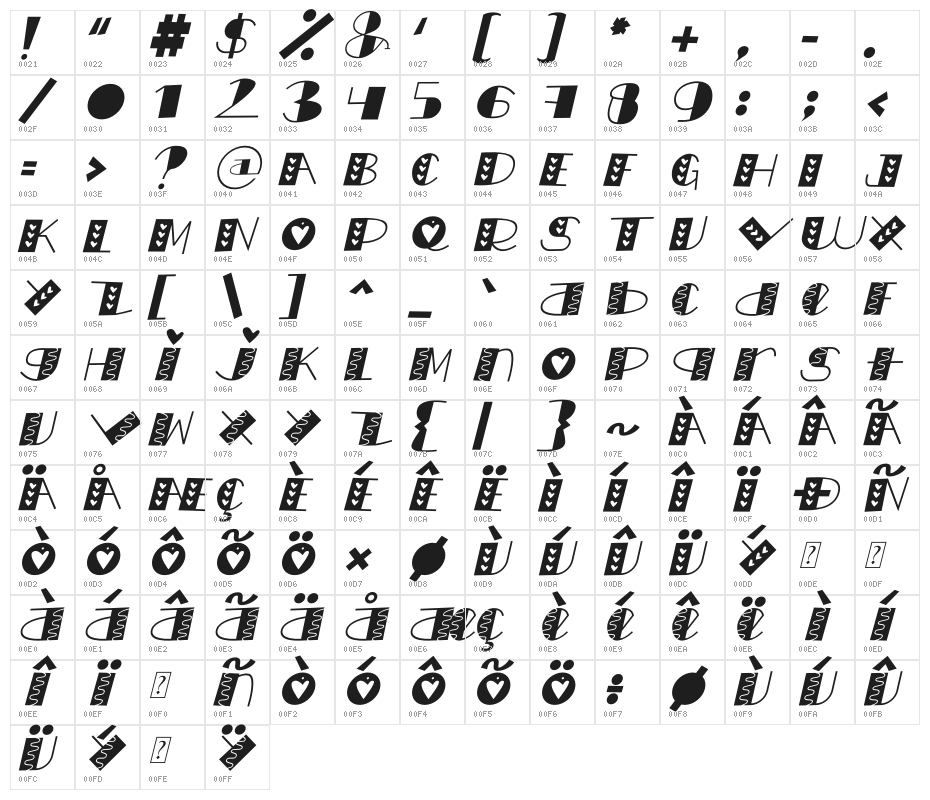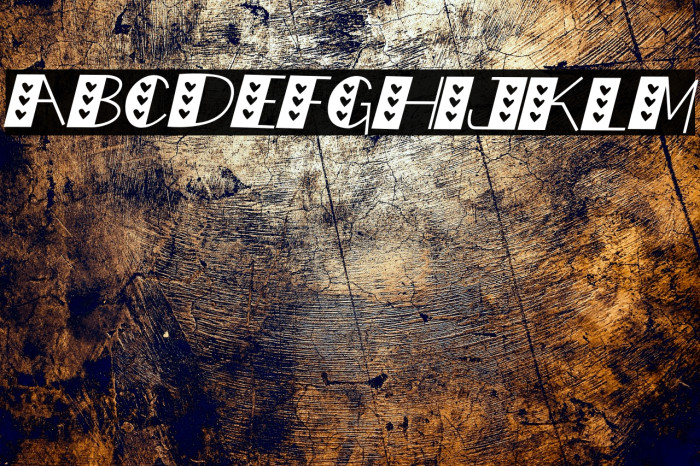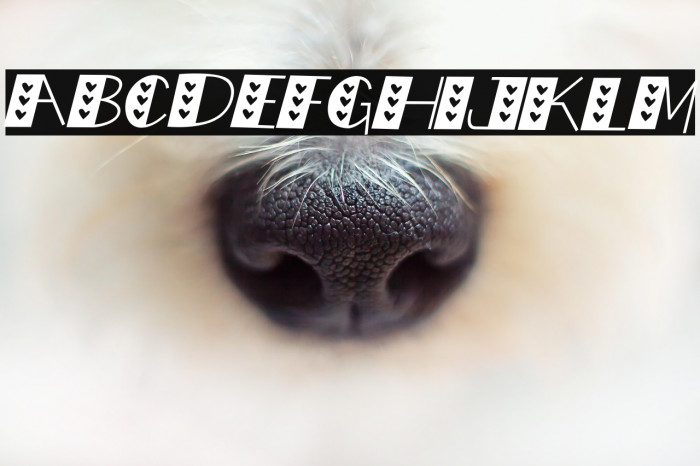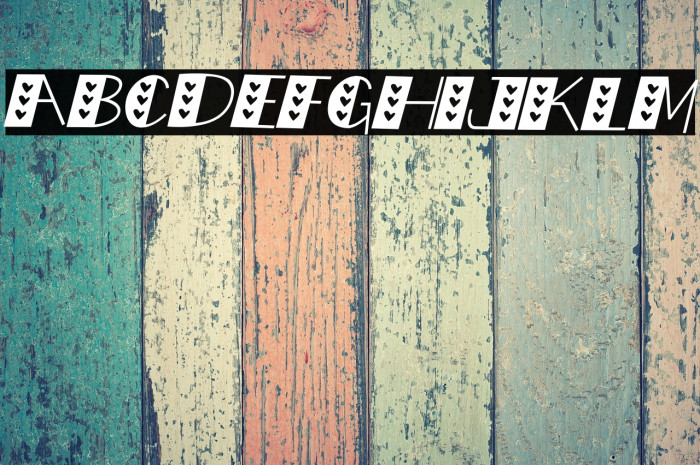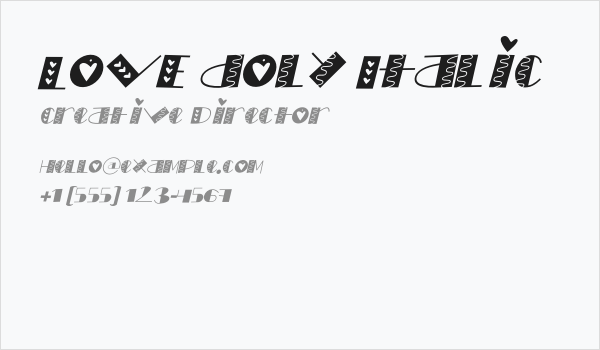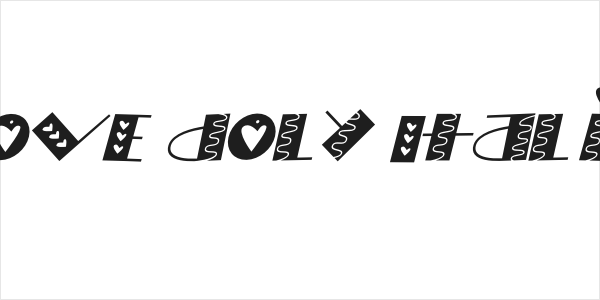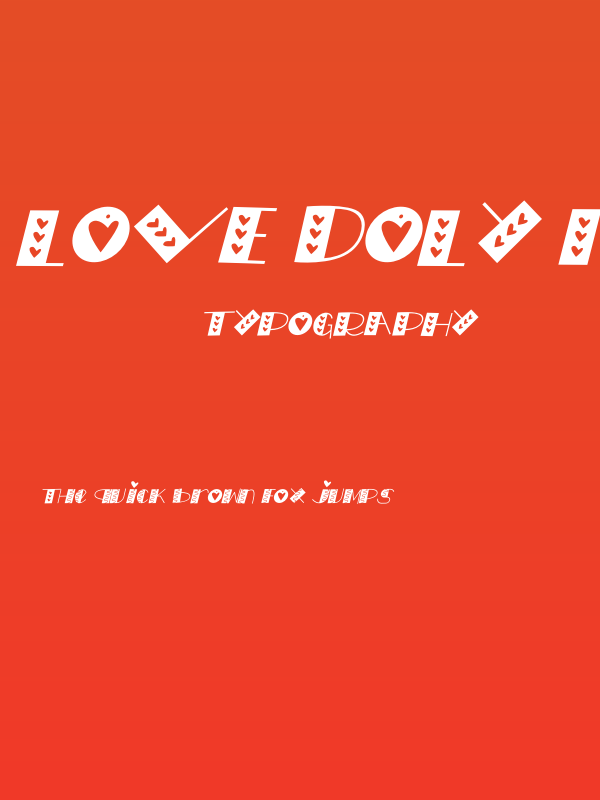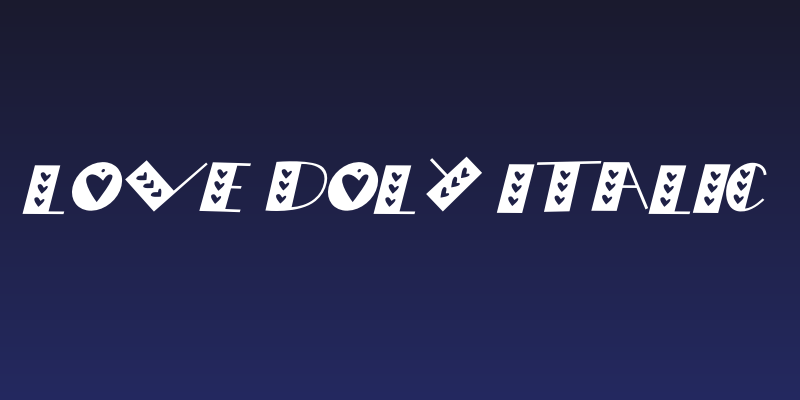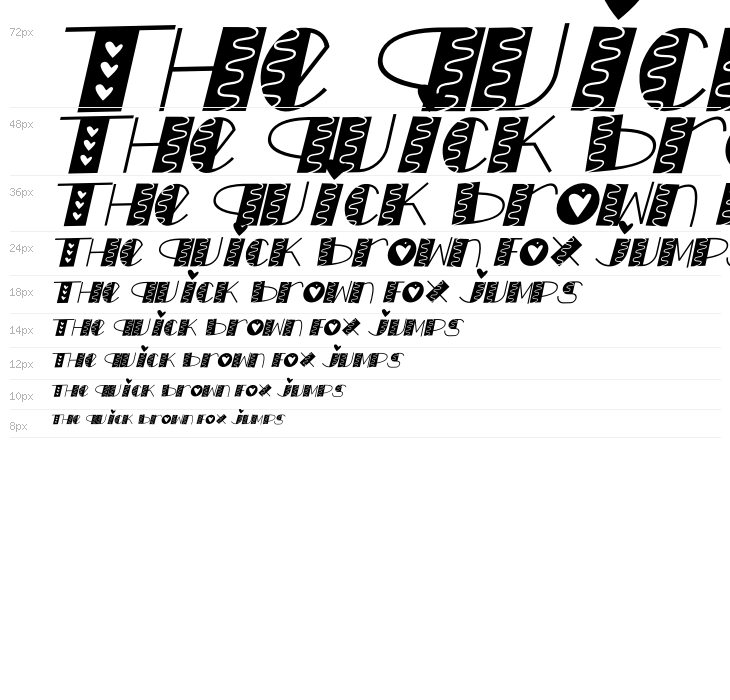
LOVE doly Italic Font
LOVE doly Italic Description
This playful and decorative font features a unique heart motif embedded within each character, adding a whimsical and romantic touch. The uppercase and lowercase letters are designed with a bold, italicized style that gives a sense of movement and energy. The numbers and special characters maintain this theme, ensuring consistency across all elements. The font's design is both eye-catching and charming, making it ideal for projects that require a fun and lively aesthetic.
| Proposed Projects | Ideal for Valentine's Day cards, wedding invitations, playful branding, and children's book covers. |